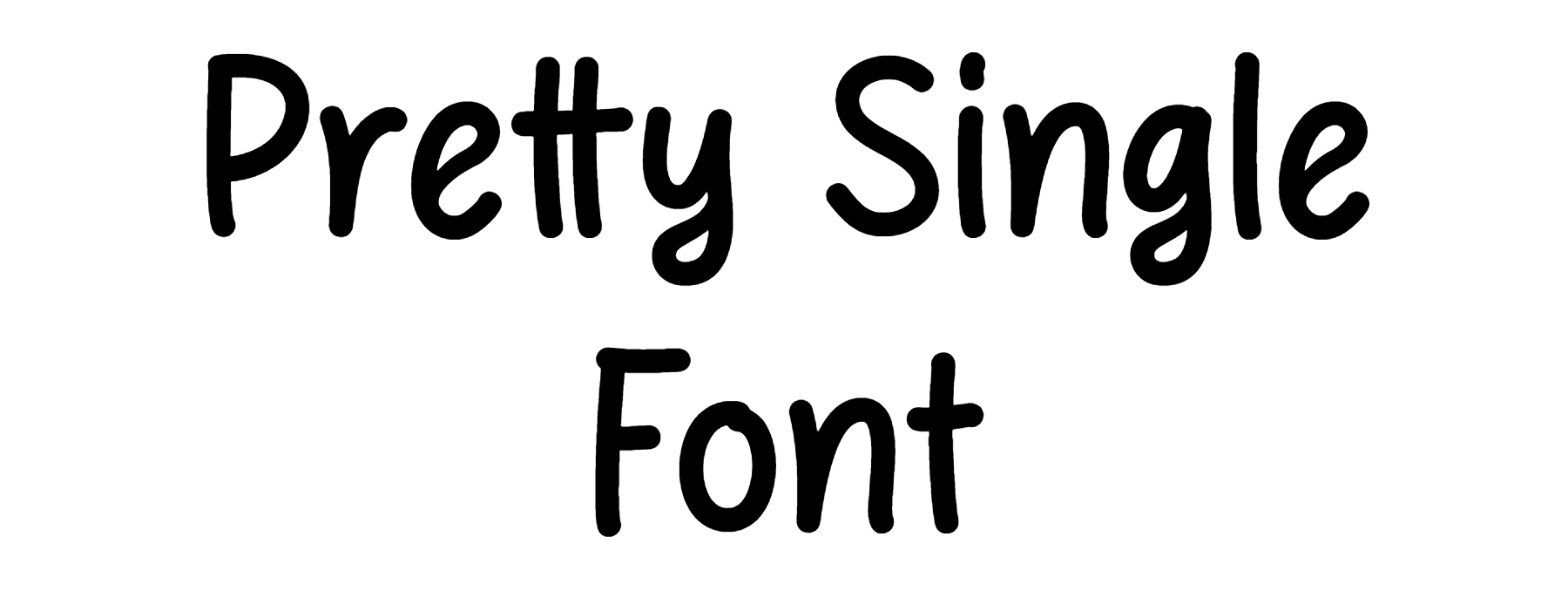
Pretty Single is a relaxed, modern handwritten script typeface created by MJType. Characterized by its friendly, approachable, and playful vibe, it features smooth, elongated curves with a highly consistent stroke width.
Pretty Single
Pretty Single is a handwritten font made by MJType (Muhamad Junaid) (2025).
- Designer: MJType (Muhamad Junaid)